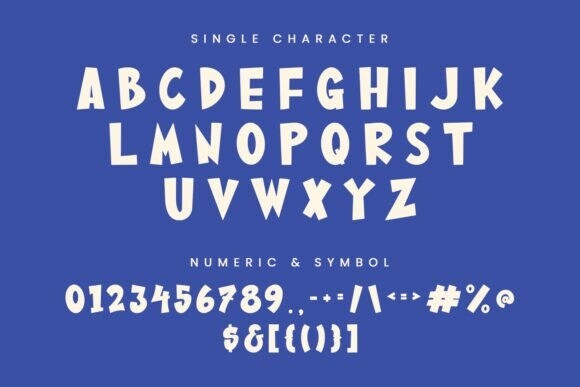
Upper Camp Font
Designer: Maulana Creative
Upper Camp Font is a playful and bold cartoon-style font with rounded letters. It has a fun and friendly look, perfect for kids’ designs, comics, and anything needing a cheerful vibe. The letters are easy to read, with a soft, bouncy feel that makes them stand out in a fun way.